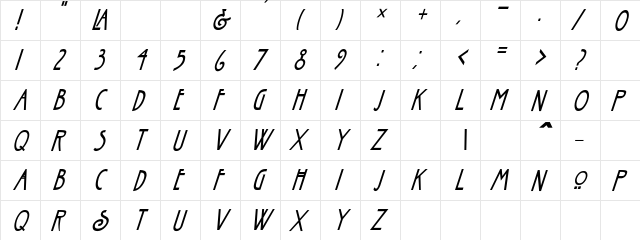
Abigail Condensed Regular
Design Context for Abigail Condensed Typeface
Abigail Condensed takes a measured approach to typography — its balanced proportions and neutral character make it a reliable workhorse for both digital and print work. The condensed width makes it efficient for tight spaces without sacrificing legibility.